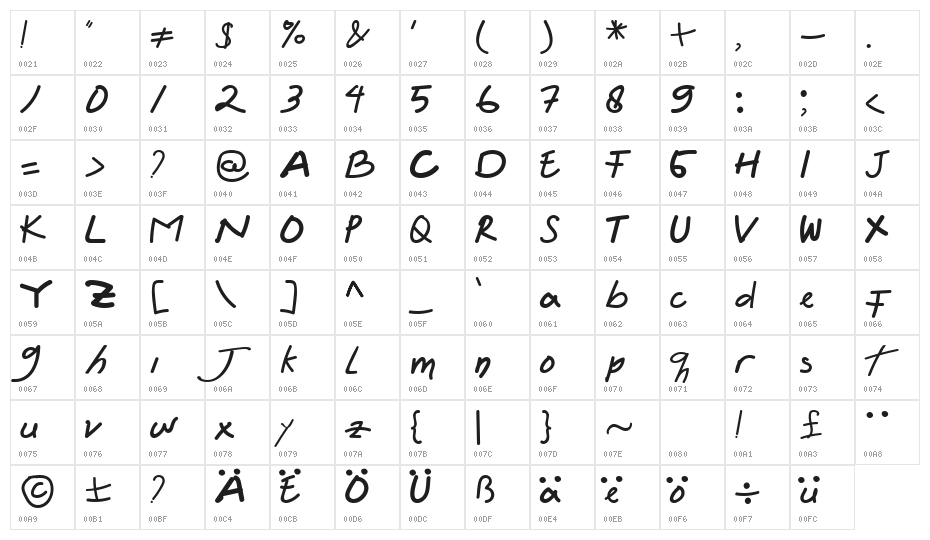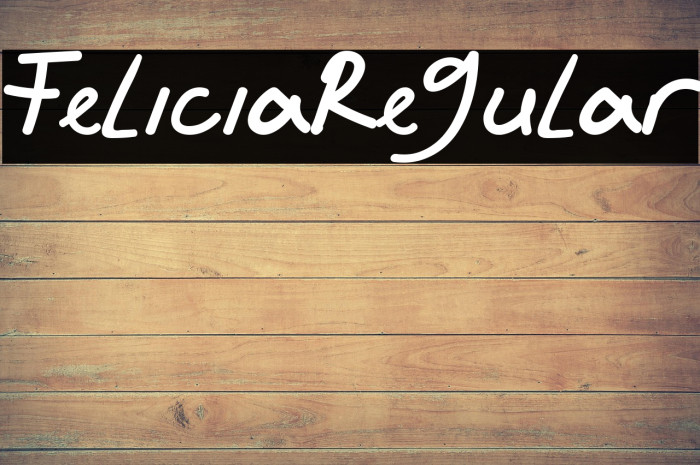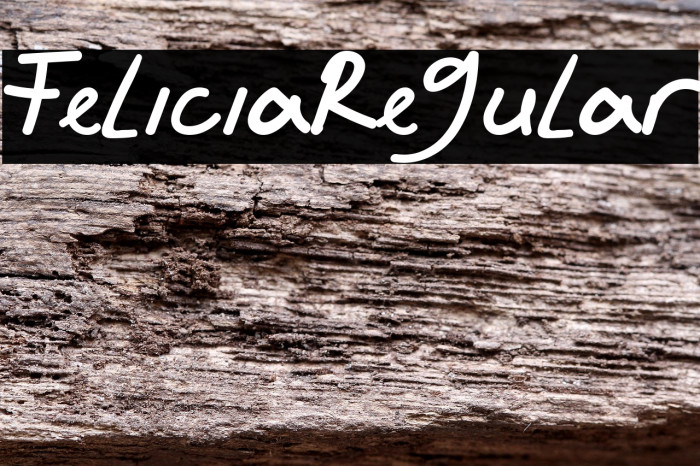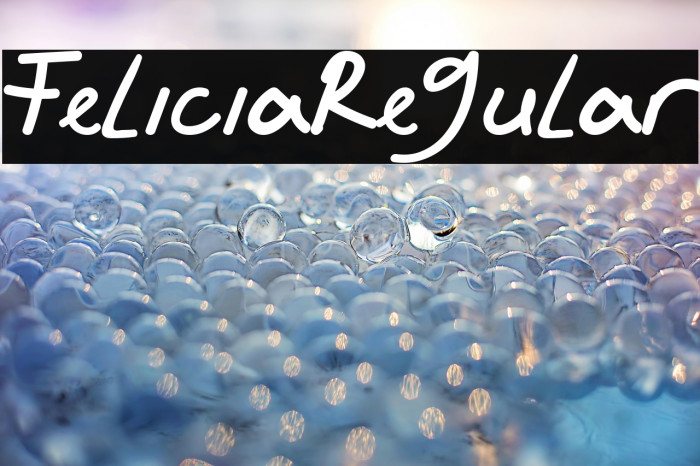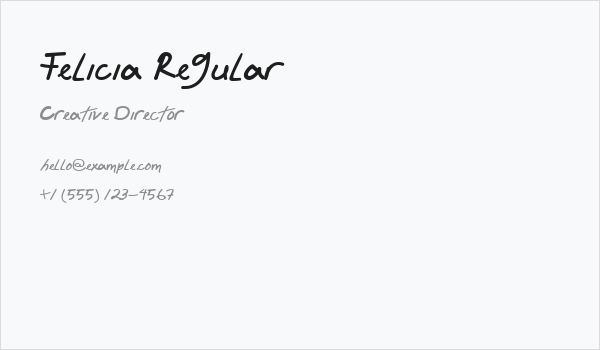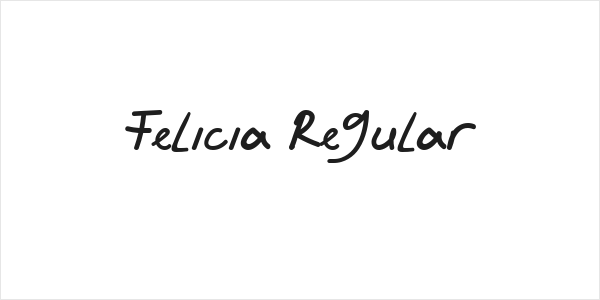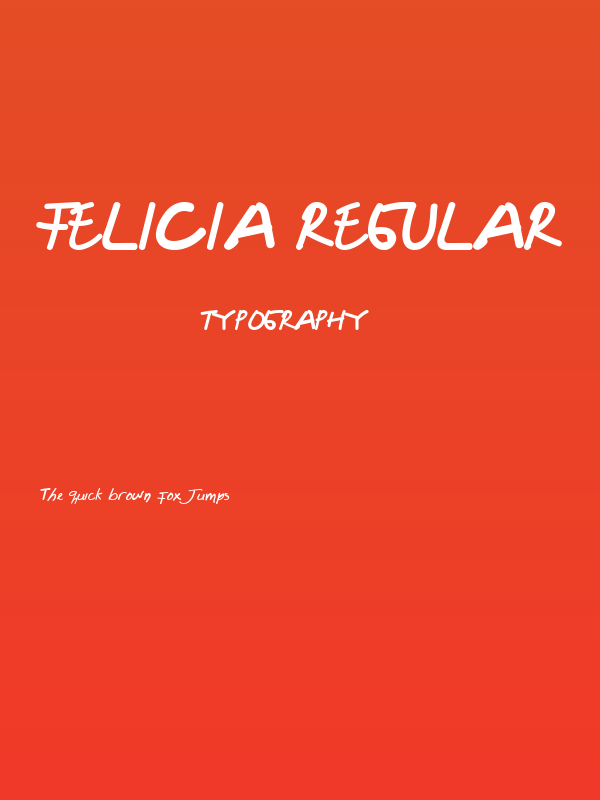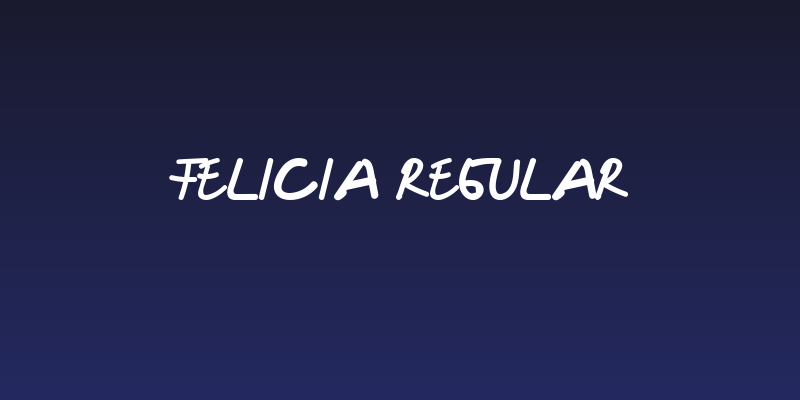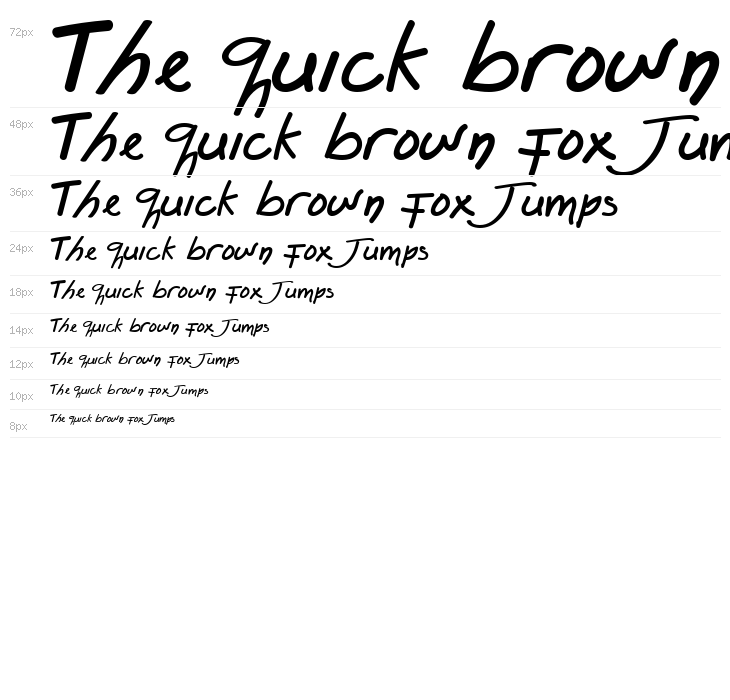
Felicia Regular Font
Felicia Regular Description
This font features a lively and dynamic handwritten style with a playful and casual appearance. The letters are slightly slanted, giving it an informal and approachable feel. The strokes are smooth and fluid, with a consistent thickness that adds to its readability. The uppercase and lowercase letters maintain a cohesive look, while the numerals and special characters complement the overall design. This font exudes a sense of creativity and spontaneity, making it suitable for projects that require a personal touch.
| Overall Style | Casual and playful |
| Proposed Projects | Ideal for greeting cards, invitations, personal branding, and creative projects that require a personal touch. |